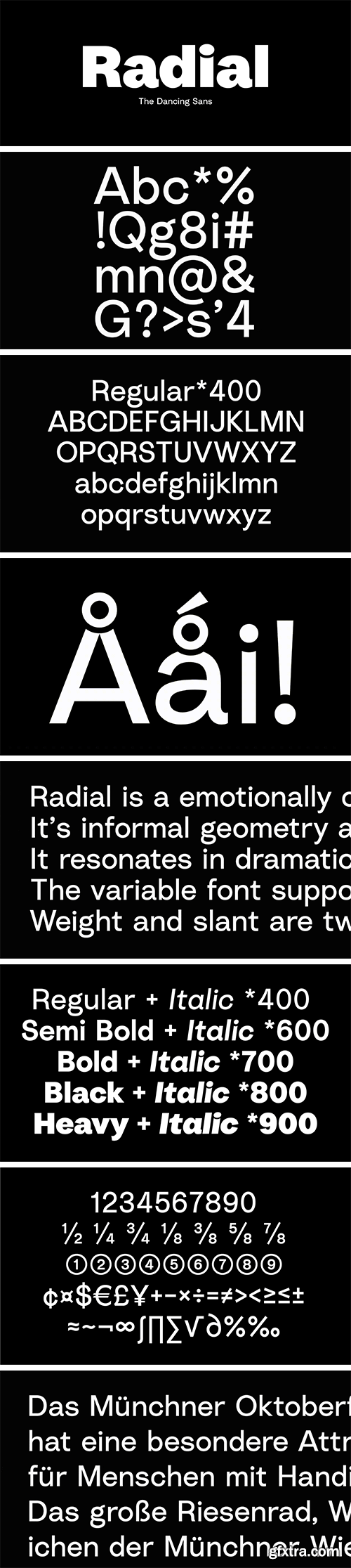
Radial Font Family
Radial is an emotionally charged geometric-turned-humanist sans serif of 5 weights with matching italics and infinite sub-instances in its variable version. Radial’s informal geometry and wide span of tonal variety cross conventional barriers of traditional sans-serif typography. Milos Mitrovic’s design resonates with a dramatic personality range, performing flawlessly in both muscular display and nimble text font sizes. The variable font support comes naturally, as Radial’s fundamental geometric forms are built with motion in mind. Weight and slant are the two axes that can be controlled simultaneously in the variable version.